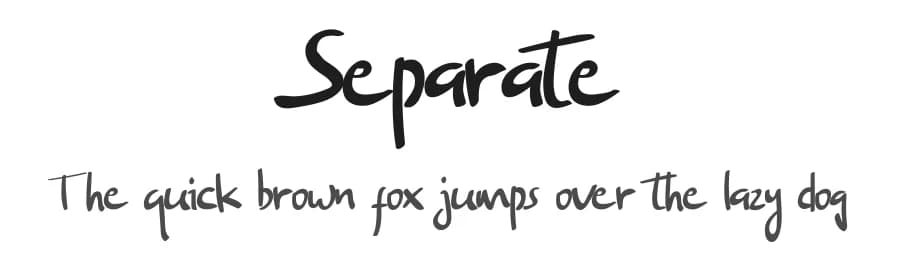
About Separate Font
Separate is a unique handwritten font that you can use it to impress your customer/your friend using this friendly font.
Separate Font